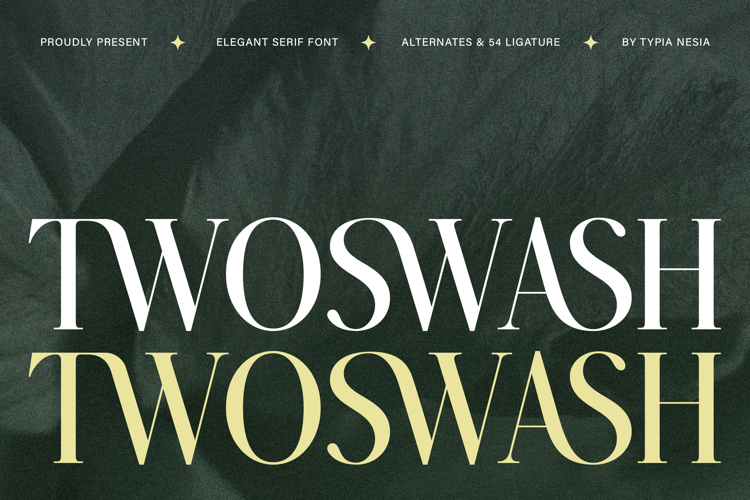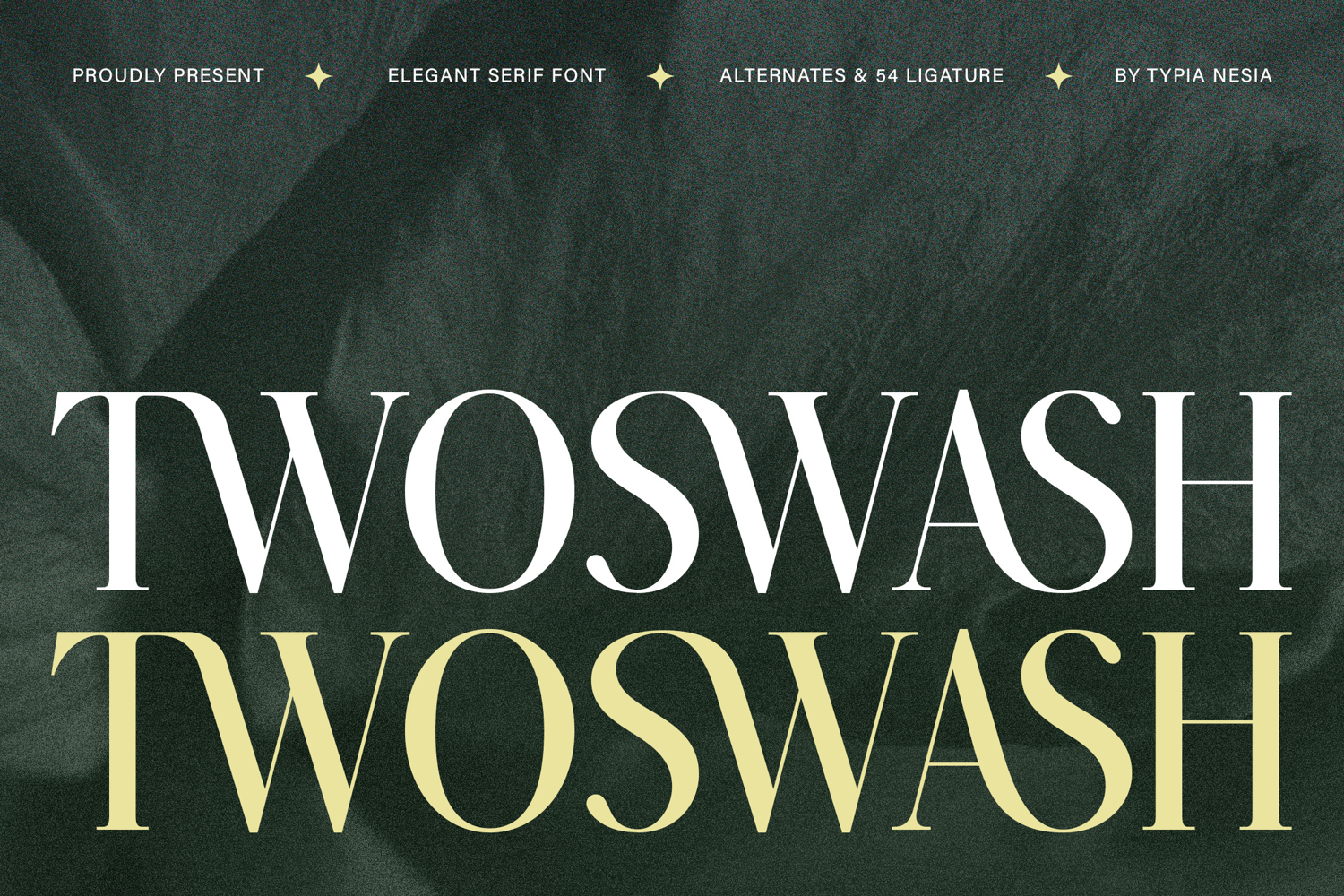
Twoswash - Beauty Elegant Ligature Serif - Modern Luxury & Royal Display Font
Twoswash is a modern elegant luxury serif font crafted to showcase beauty, grace, and timeless sophistication. Designed with refined curves, stylish contrast, and graceful proportions, this typeface delivers a feminine, classy, and royal character that feels premium and elegant. This font is ideal for logo design, wedding invitations, cosmetic branding, fashion editorials, skincare packaging, posters, and premium product packaging. The elegant serif structure ensures readability while maintaining a polished and high-end aesthetic.
Create timeless luxury with Twoswash.